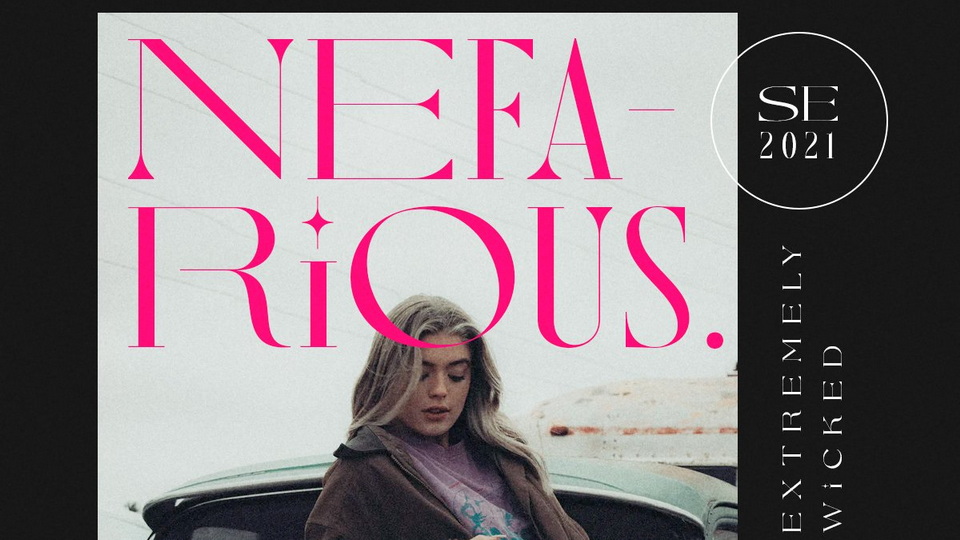
Download Nefarious font, a unique and modern serif typeface. With expanded version as lowercase, Nefarious font will make your presentation, poster, logo, or your magazine cover even more stunning and stand out with simple step.